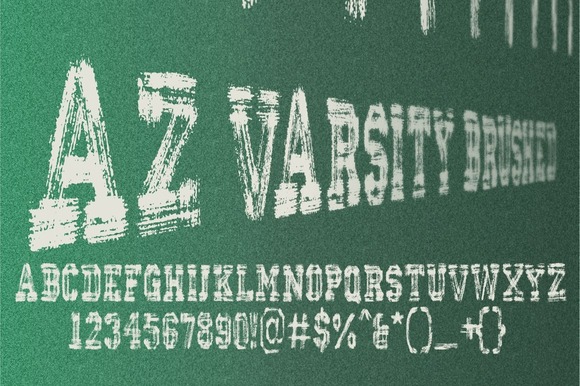
AZ Varsity Brushed Font: A Comprehensive Guide
The AZ Varsity Brushed font has gained significant popularity in recent years due to its unique and stylish design. Inspired by the typical print on college shirts, this font combines the rough, painted look from Hollister shirts, making it a favorite among designers and typography enthusiasts. In this article, we will delve into the world of AZ Varsity Brushed font, exploring its history, features, and uses.
What is AZ Varsity Brushed Font?
AZ Varsity Brushed font is a typeface designed to mimic the classic print on college shirts. The font features a distressed, brushed look that gives it a casual, laid-back feel. The design is inspired by the typical print on college shirts, which often feature bold, block letters with a rough, painted look.
History of AZ Varsity Brushed Font
The AZ Varsity Brushed font was created with the intention of capturing the essence of college shirt print. The font’s designer drew inspiration from the classic print on college shirts, which often feature bold, block letters with a rough, painted look. The font was also influenced by the iconic Hollister shirts, known for their distinctive, rough-painted designs.
Features of AZ Varsity Brushed Font
The AZ Varsity Brushed font boasts several features that make it a popular choice among designers. Some of its notable features include:
- Distressed look: The font features a distressed, brushed look that gives it a casual, laid-back feel.
- Bold and block letters: The font features bold, block letters that are reminiscent of classic college shirt print.
- Rough-painted texture: The font features a rough-painted texture that adds to its casual, laid-back feel.
- High-quality design: The font is designed with high-quality vectors, making it suitable for use in a variety of applications.
Uses of AZ Varsity Brushed Font
The AZ Varsity Brushed font is a versatile typeface that can be used in a variety of applications. Some of its common uses include:
- Branding and advertising: The font’s bold, distressed look makes it a great choice for branding and advertising applications.
- Fashion and apparel: The font’s casual, laid-back feel makes it a great choice for fashion and apparel applications, such as t-shirt designs and logos.
- Signage and print: The font’s bold, block letters make it a great choice for signage and print applications, such as posters and flyers.
- Digital media: The font’s high-quality design makes it suitable for use in digital media, such as video games and mobile apps.
Tips for Using AZ Varsity Brushed Font
Here are some tips for using AZ Varsity Brushed font:
- Use it sparingly: The font’s bold, distressed look can be overwhelming if used excessively. Use it sparingly to add emphasis to your design.
- Pair it with a simple font: The font’s bold, block letters can be paired with a simple font to create a striking contrast.
- Experiment with colors: The font’s rough-painted texture looks great with bold, bright colors. Experiment with different colors to find the perfect combination.
In conclusion, the AZ Varsity Brushed font is a unique and stylish typeface that is inspired by the typical print on college shirts. Its distressed, brushed look and bold, block letters make it a great choice for a variety of applications, from branding and advertising to fashion and apparel. With its high-quality design and versatility, AZ Varsity Brushed font is a great addition to any designer’s toolkit.